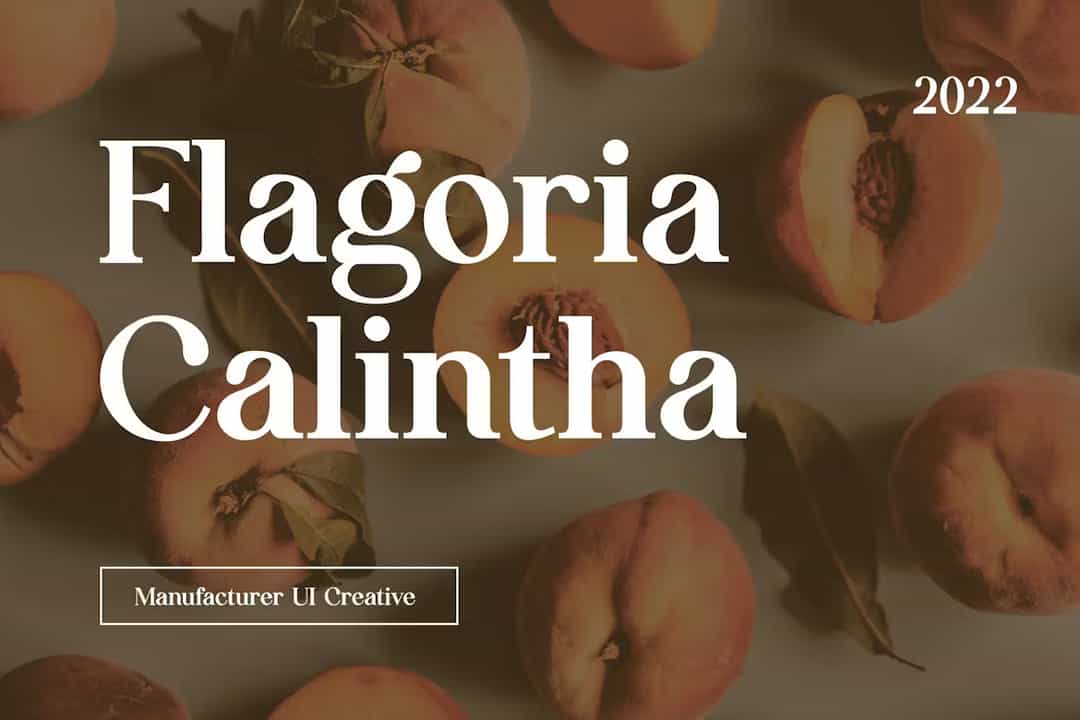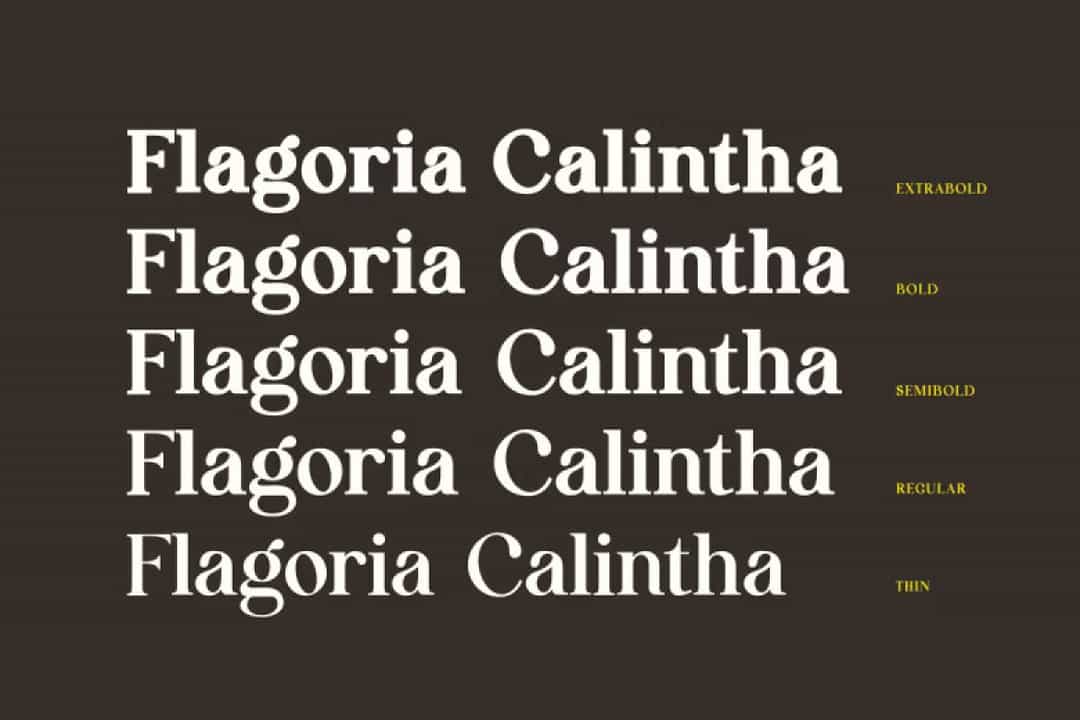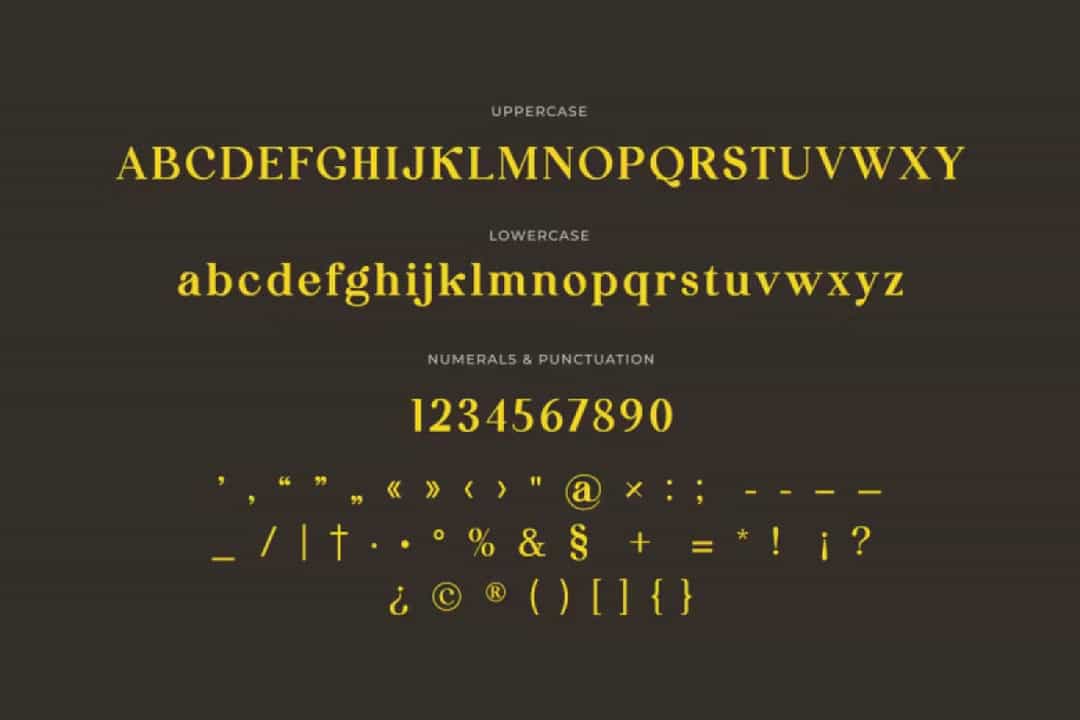
Flagoria Calintha is a serif font that looks beautiful, classic, and elegant, yet at the same time is modern. This font is good for any project, whether it is for signature, stationery, logo, wedding, or typography quotes, magazine or book cover, website header, clothing, branding, packaging design etc.